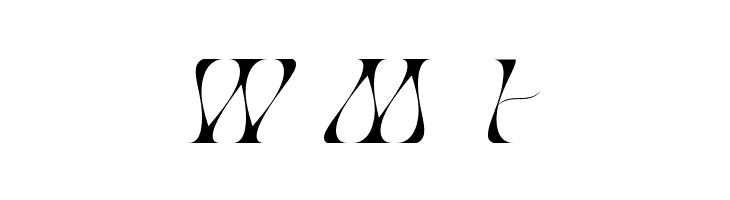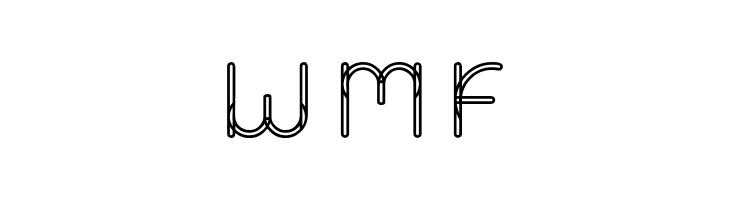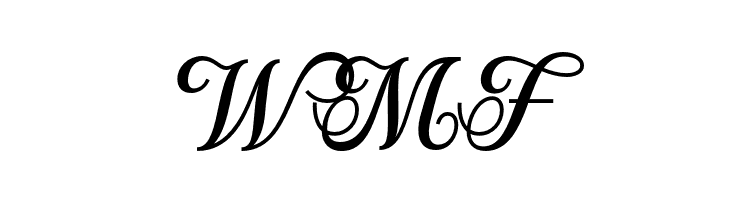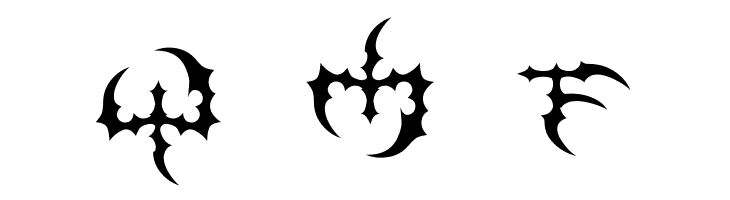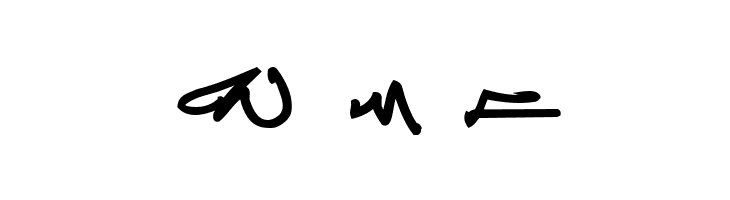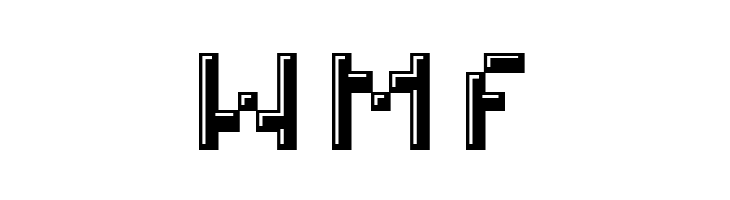
• MeghanFasshionDemo
A modern, elegant script font with high contrast and dynamic curves.
• Meghna's Handwriting Regular
• Meglaphoid
A bold, graffiti-inspired font with dynamic, sweeping strokes and artistic flair.
• MegrenDEMO-Regular
A versatile font combining ornate script and bold sans-serif styles.
• meguido-jed-
• Megumin
A modern, double-line geometric font with a playful and airy design.
• MEGZ
• Mehr
A bold, decorative font with a unique, ancient script-inspired style.
• Mehraab
A bold, geometric font with a modern twist and stylized numerals.
• Mehrajan-ExtraLight
A sleek, extra light font with a modern and minimalist design.